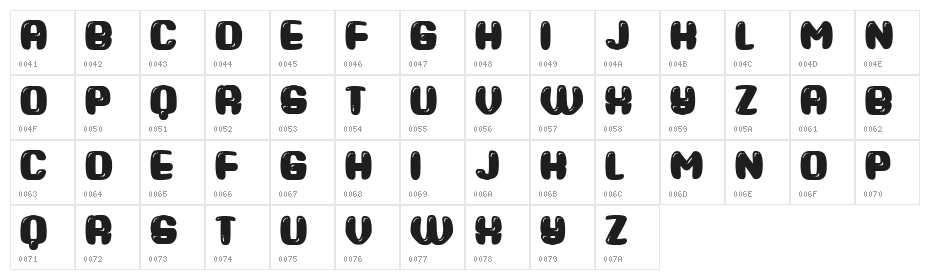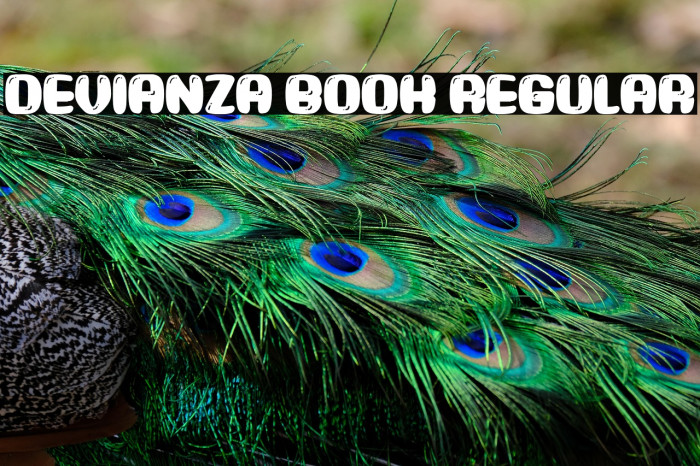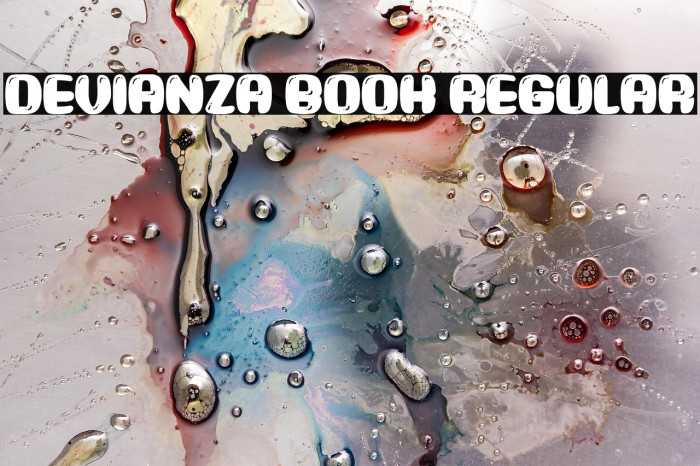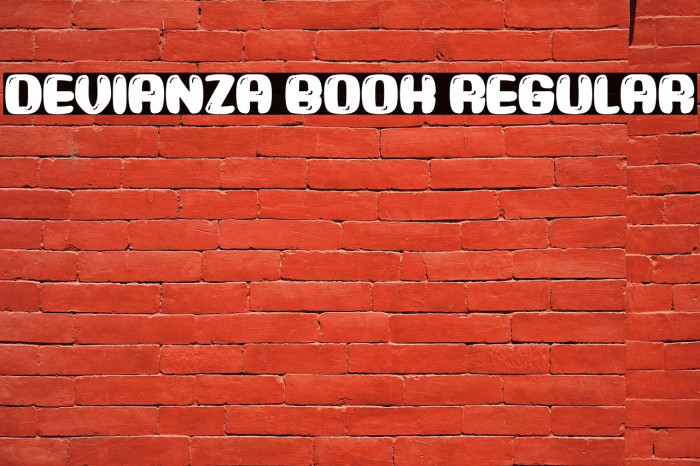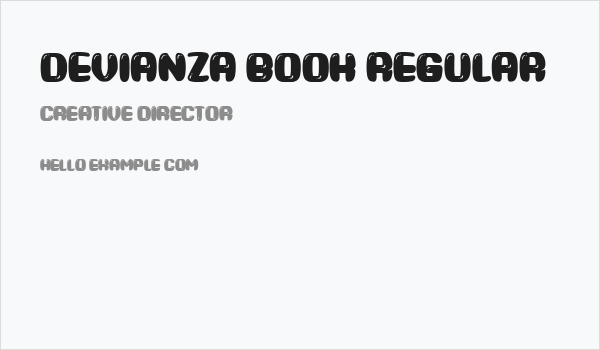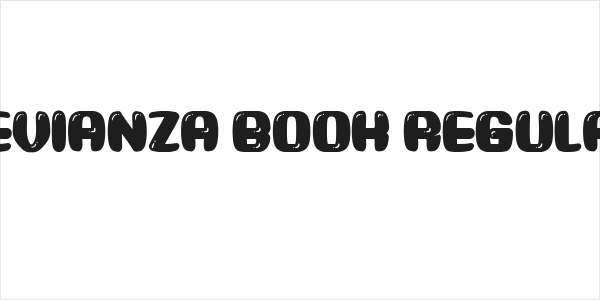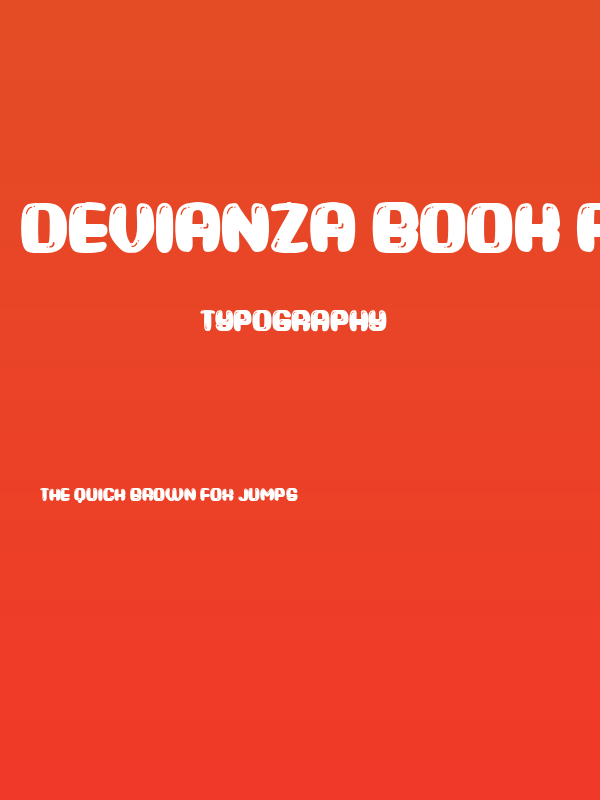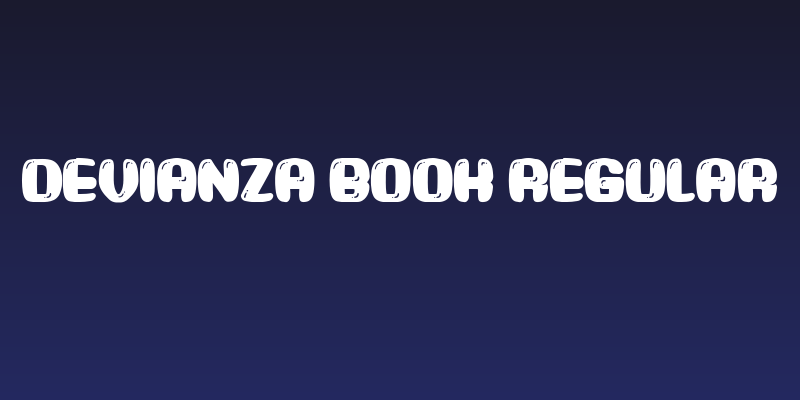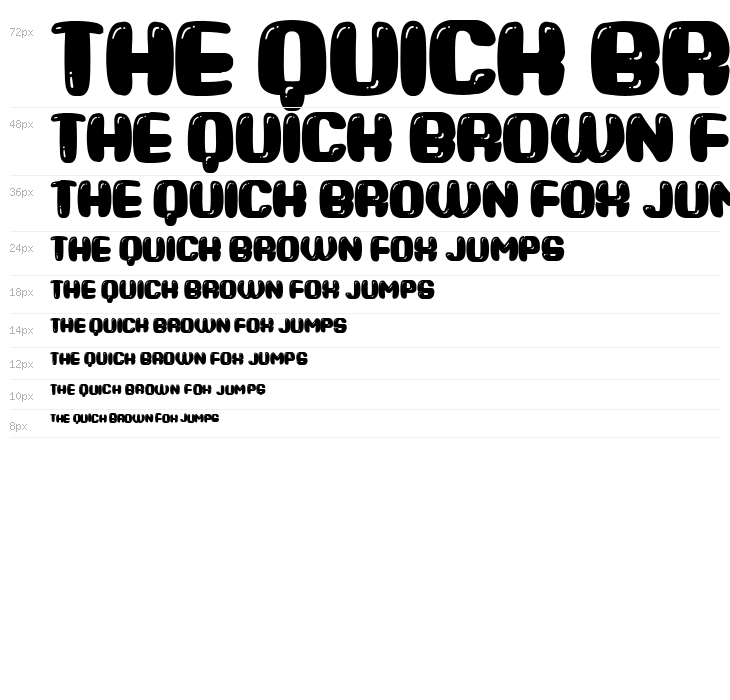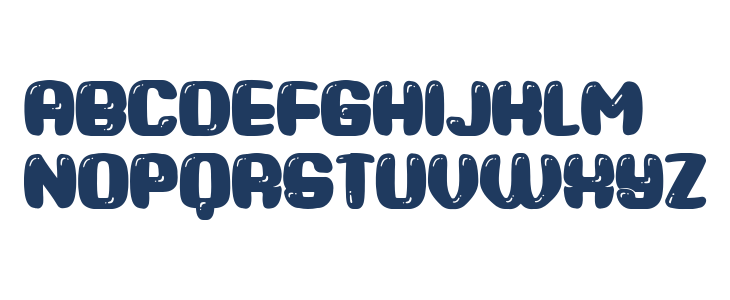
Devianza Book Regular Font
Devianza Book Regular Description
This font features a bold and playful design with rounded edges and a slightly irregular shape, giving it a unique and whimsical appearance. The characters are thick and substantial, with a consistent weight throughout, making it highly legible and impactful. The rounded forms and smooth curves create a friendly and approachable feel, while the slight irregularities add a touch of personality and charm. This style is reminiscent of retro or vintage aesthetics, yet it maintains a modern twist, making it versatile for various design applications.
| Overall Style | Retro, Modern |
| Proposed Projects | Ideal for children's books, playful branding, retro-themed designs, and eye-catching posters. |